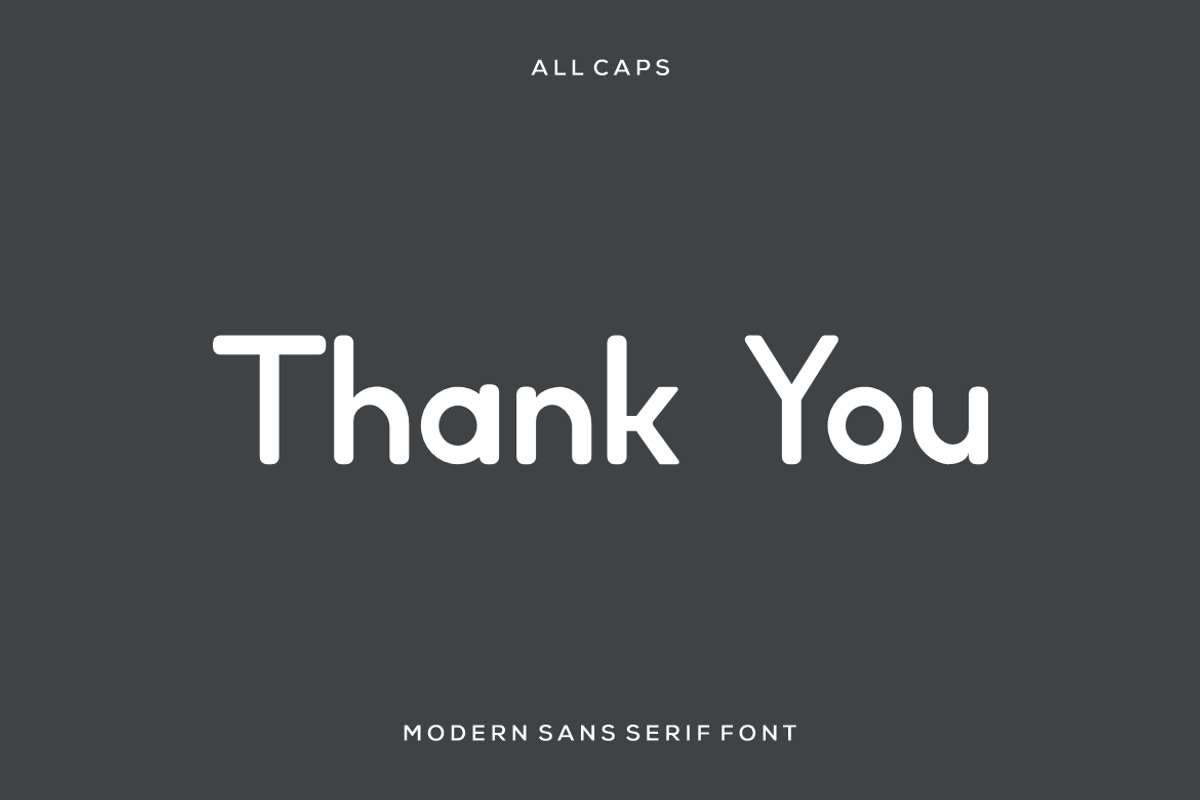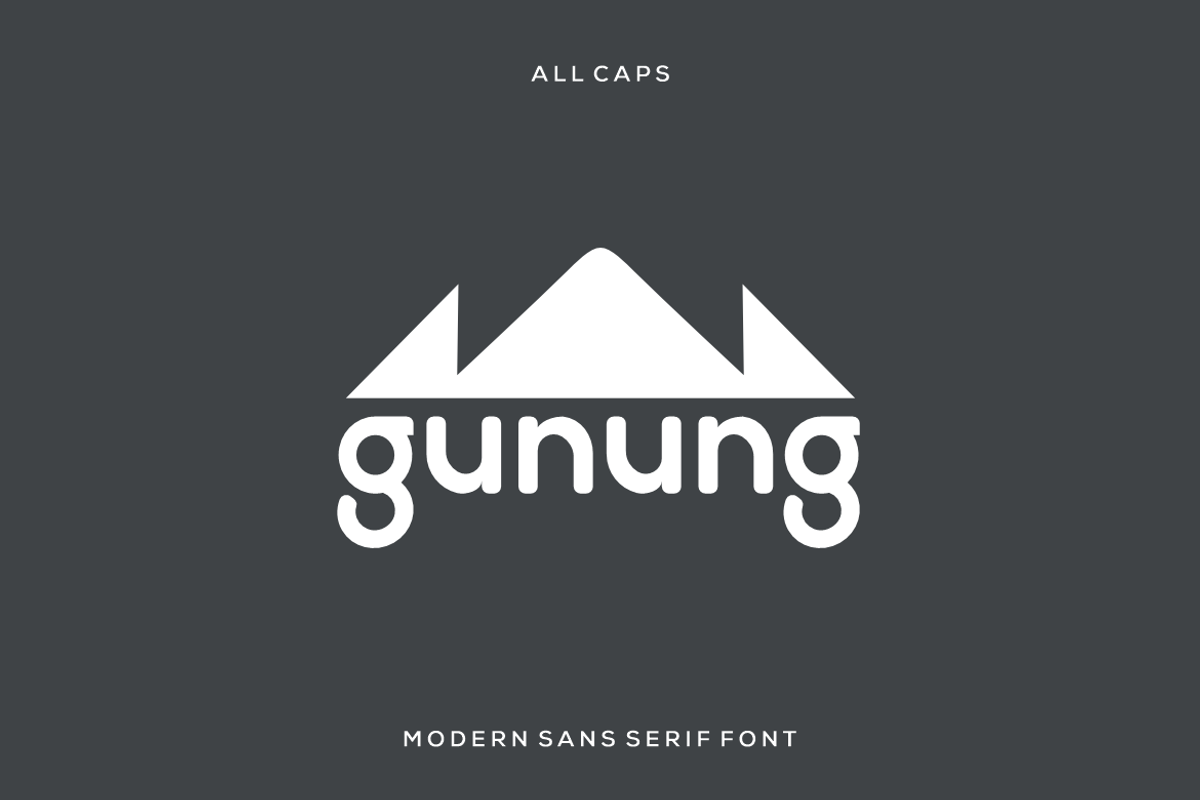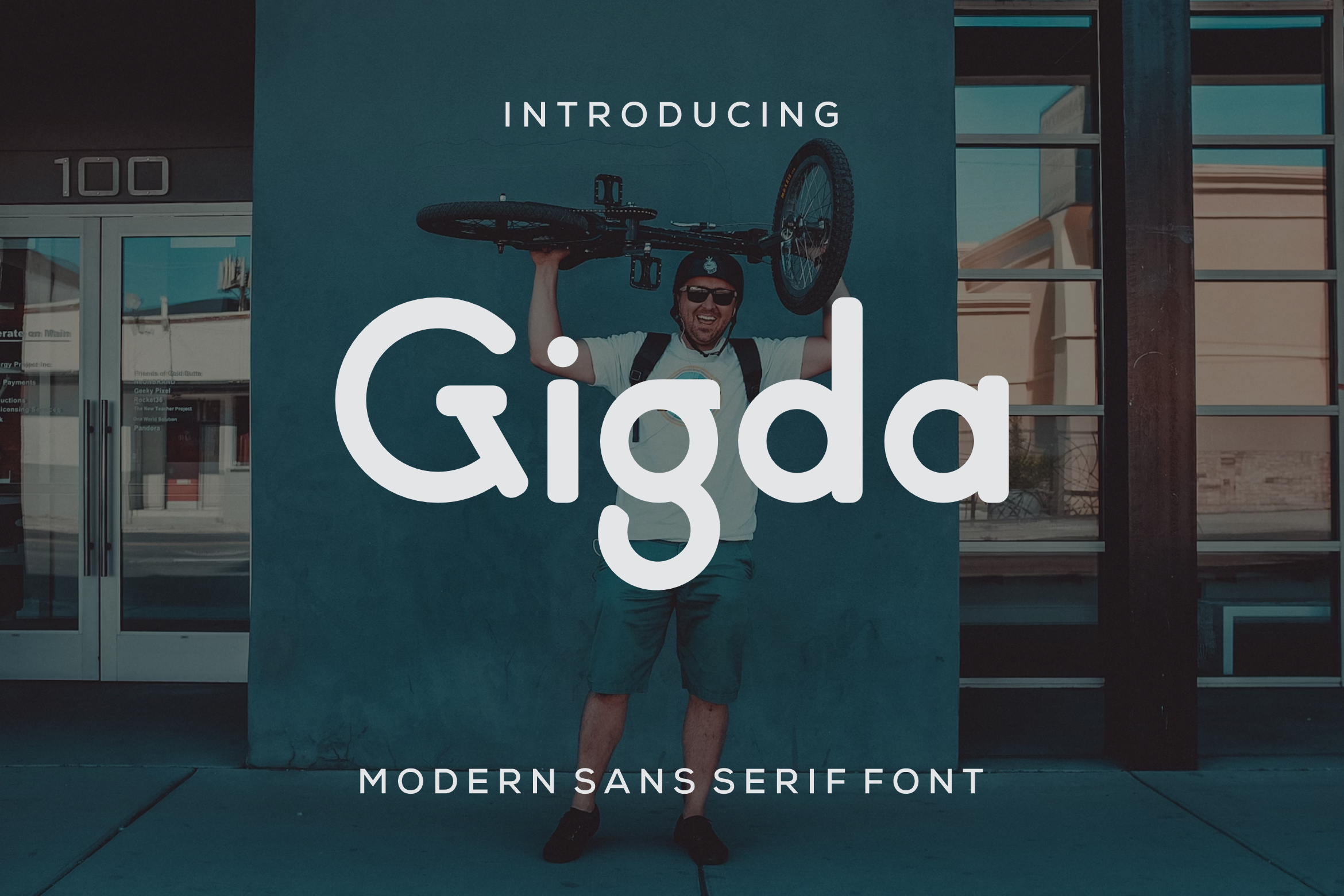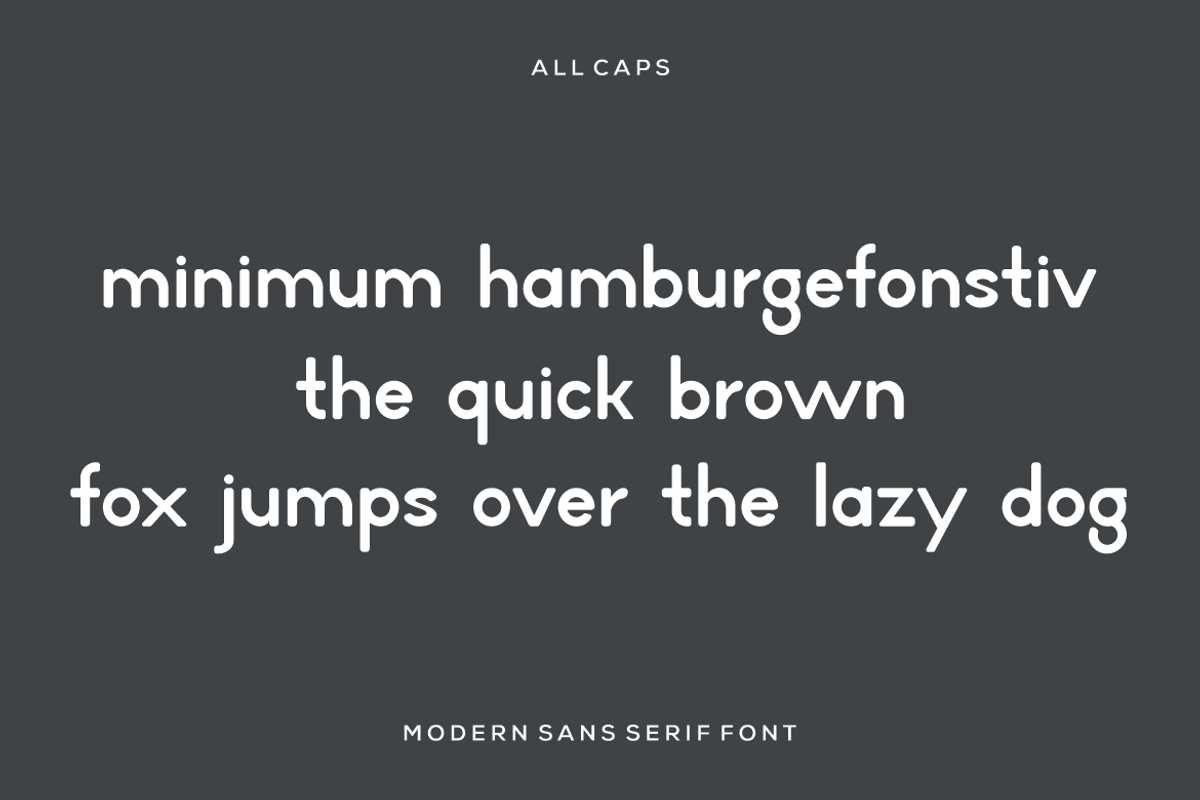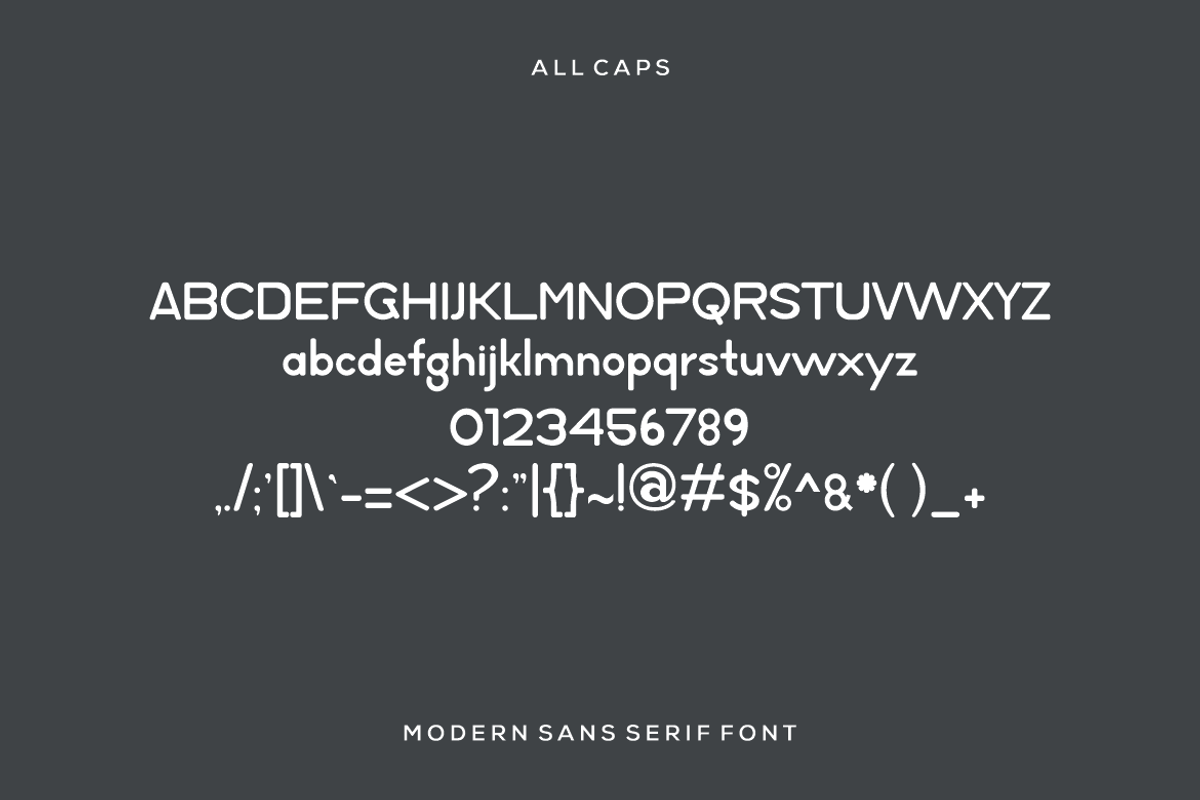
Gigda modern sans serif font
Gigda is a modern sans serif font, a modern display font with playful flair, ideal for attention-grabbing headlines, logos, and diverse design projects. Versatile and readable in both digital and print, Gigda adds a dynamic touch to your message.